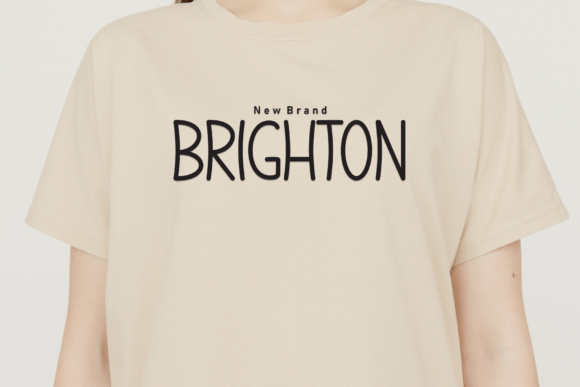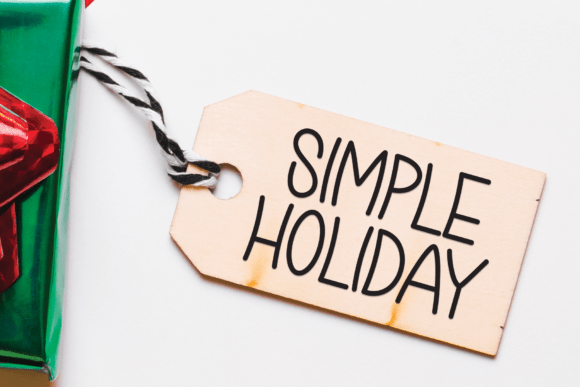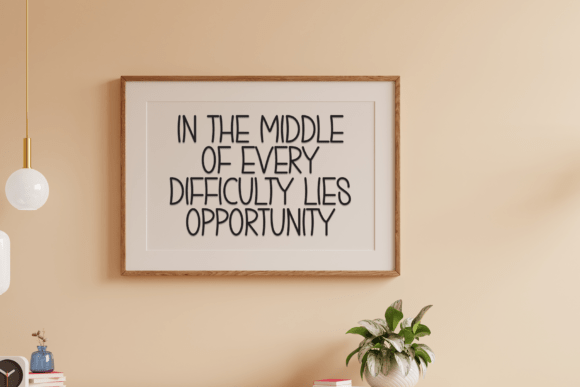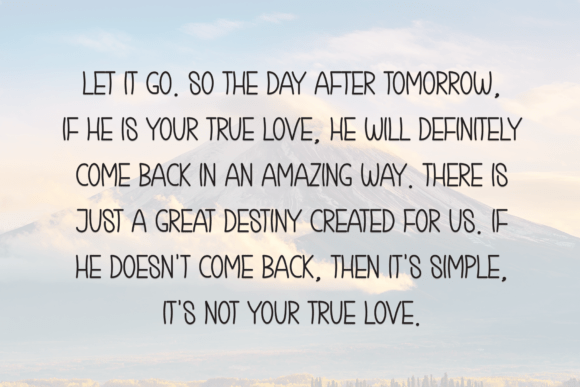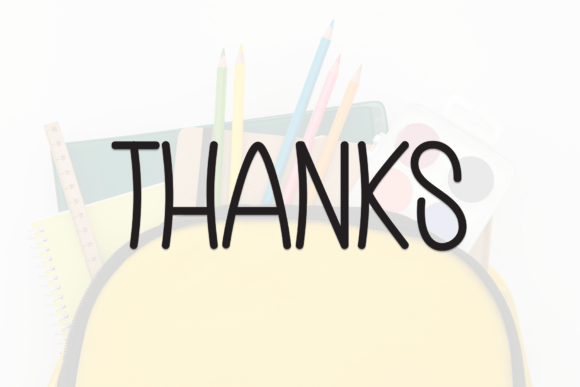
Introduction to School Sticker Font
Do you remember the thrill of decorating your school folders and notebooks with colorful stickers and doodles? The simple joy of personalizing your belongings with fun designs and bright colors is something that many of us cherish from our childhood days. As designers, we’re always on the lookout for ways to bring that same sense of playfulness and creativity to our projects. Enter the School Sticker Font, a delightful typography that embodies the spirit of whimsy and fun.
This charming font is more than just a design resource – it’s a key to unlocking the full potential of your creative project. With its high-quality, transparent background, it’s perfect for adding a touch of personality to your designs. And the best part? It’s available for a free download, making it accessible to designers of all levels. Whether you’re working on a wedding invitation or a greeting card, the School Sticker Font is sure to elevate your project and leave a lasting impression on your audience.
Key Features of School Sticker Font
- Perfect for school-themed projects, educational materials, and sticker designs
- Includes a range of customizable stickers with different shapes, sizes, and colors
- Comes with a comprehensive character set, including uppercase and lowercase letters, numbers, and punctuation
- Great for use in digital design, print materials, and online graphics, thanks to its versatility and ease of use
Honest Review: School Sticker Font
As a designer, I’m always on the lookout for high-quality design resources that can elevate my creative projects. The School Sticker Font has been a game-changer for me. ✨ Its playful and whimsical style is perfect for kids’ educational materials, party invitations, and even branding for schools.
- What I love about the School Sticker Font is its versatility – it comes in a range of colors and can be easily customized to suit any design need.
- The font is highly legible, making it perfect for reading materials, signs, and other educational content.
However, there are some limitations to consider: ⚠️ The font doesn’t come with a transparent background option, which can make it difficult to use on complex backgrounds.
Overall, I’m really impressed with the School Sticker Font. It’s a great addition to any designer’s toolkit, and I’d highly recommend it for any creative project that requires a playful and educational feel.
Tips for Getting the Most Out of School Sticker Font
To get the most out of School Sticker Font, consider the following tips: Use it to add a playful touch to your designs, experiment with different font sizes and colors, and combine it with other design elements for a unique look.
School Sticker Font is commonly used in educational projects, such as creating stickers for school supplies or designing educational materials. It can also be used in creative projects, such as making party invitations or designing social media graphics.